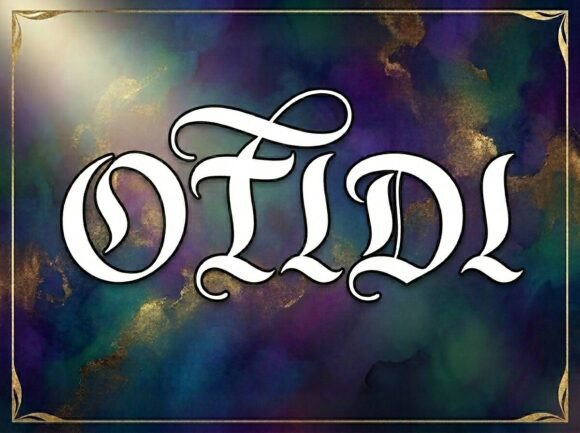
Otidi: A Designer's Honest Review for Real Projects
When I first opened the Otidi font file, I didn't just see a collection of glyphs; I saw a specific mood waiting to be set. As a designer who has spent years refining brand identities and crafting visual systems, my initial reaction is often about whether a typeface feels alive or merely decorative. Otidi immediately strikes me as having a distinct personality. It isn't trying to be invisible like a standard sans serif font, nor is it overly ornate in a way that screams "dated." Instead, it possesses a bold, confident character that demands attention while maintaining a sense of approachable elegance.
This display font feels right at home in projects where visual impact is the primary goal. The letterforms have a subtle weight and rhythm that suggest they were drawn with intention rather than generated by an algorithm. When I look at the uppercase letters, there is a strong structural integrity, yet the curves offer a softness that prevents the design from feeling too rigid. It creates a visual whisper that says, "I am premium," without shouting for validation. For anyone looking for a creative font that can elevate a simple logo design into something memorable, Otidi offers a compelling starting point.
Where Otidi Shines in Professional Workflows
I don't believe in using fonts just because they are trendy. My evaluation always centers on how a typeface performs under real-world pressure. In my recent client work involving brand identity and packaging design, Otidi proved to be a versatile asset. Imagine applying this to a product label for artisanal coffee or a boutique skincare line. The bold strokes create excellent contrast against complex textures, making the brand name pop off the shelf. It handles the hierarchy of information beautifully when used as a headline, guiding the viewer's eye exactly where you want it to go.
For digital creators and marketers, Otidi is equally effective. I tested it on various social media graphics and found that its legibility remains high even when scaled down for mobile screens. This is crucial for modern typography, where space is limited and attention spans are short. Whether you are designing website headers, promotional flyers, or digital ads, the font maintains its character without losing clarity. It pairs exceptionally well with clean serif font styles for body text, creating a balanced composition that feels both modern and trustworthy.
The versatility extends to print-on-demand and craft projects as well. If you are a crafter working with Cricut machines or a digital seller creating printable design assets, Otidi provides the necessary weight to ensure your cut files hold up well. It works wonders for wedding invitations, event posters, and merchandise like t-shirts and tote bags. The font's unique structure allows it to stand out as a statement piece, turning a generic template into a custom design asset that reflects a high level of craftsmanship.
Navigating the Fine Line Between Impact and Readability
While Otidi is powerful, it is not a one-size-fits-all solution. Like any display font, it requires strategic placement to avoid overwhelming the viewer. I recommend using it primarily for large headlines, short phrases, and brand marks. When used for long paragraphs of supporting text, the density of the characters can become fatiguing to read. The strength of Otidi lies in its ability to act as a focal point, drawing the audience in before they engage with more neutral body copy.
In editorial design, I have seen designers make the mistake of overusing decorative typefaces. With Otidi, the key is restraint. Use it to highlight quotes, section titles, or key marketing messages. This approach enhances audience trust and recognition because the text remains scannable and professional. When paired correctly, Otidi adds a layer of sophistication that plain text simply cannot achieve. It elevates the perceived value of the content, making it feel like a premium publication or a high-end advertisement.
However, caution is advised when placing it next to other display fonts or heavy script font styles. The competition for visual dominance can result in a chaotic layout. Instead, let Otidi take the lead while softer handwritten font styles or minimal sans serif font options handle the details. This balance ensures that the overall design feels cohesive rather than cluttered. The font's personality should complement the message, not distract from it.
Practical Notes for the Discerning Designer
Before committing Otidi to a final project, there are several practical steps every professional should take. First, test the font in black and white. Color can sometimes mask spacing issues or weight imbalances, so seeing the pure form helps you judge the true structure of the letters. Check its readability at small sizes, especially if you plan to use it for web design or mobile interfaces. While Otidi is robust, fine details may disappear when scaled down too far.
Try placing the font on real mockups. Seeing Otidi on a physical package or a website header gives you a better sense of its scale and presence than viewing it on a screen alone. Compare the uppercase and lowercase versions to ensure they share the same DNA. If you are building a comprehensive font pairing system, experiment with how Otidi interacts with different styles. Does it harmonize with a classic serif font? Does it clash with a geometric sans serif font? These experiments will reveal the most effective combinations for your specific needs.
Ultimately, Otidi is more than just a typeface; it is a design choice that signals quality and intent. By understanding its strengths and limitations, you can harness its potential to create designs that resonate with your audience and stand the test of time. Whether you are a seasoned agency owner or a solo entrepreneur, adding Otidi to your toolkit offers a fresh perspective on how to communicate your brand story effectively.